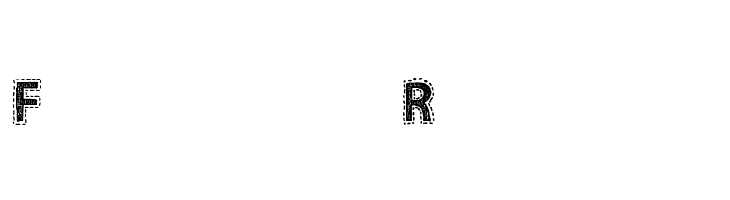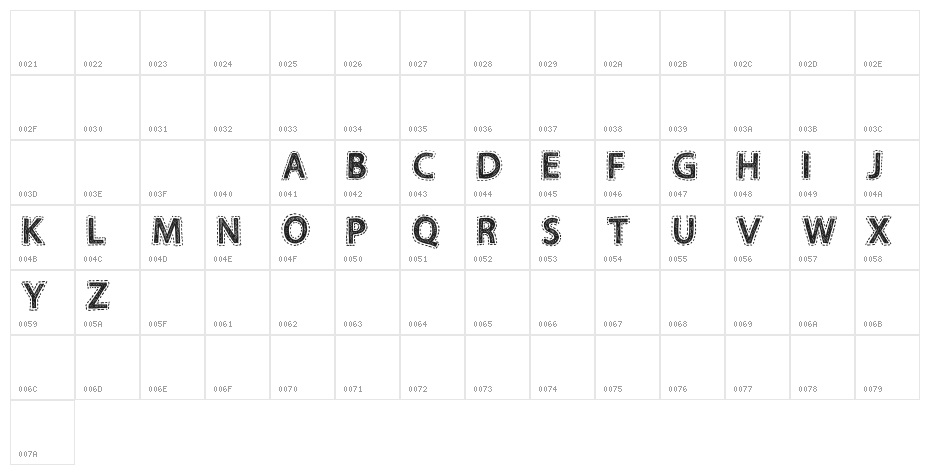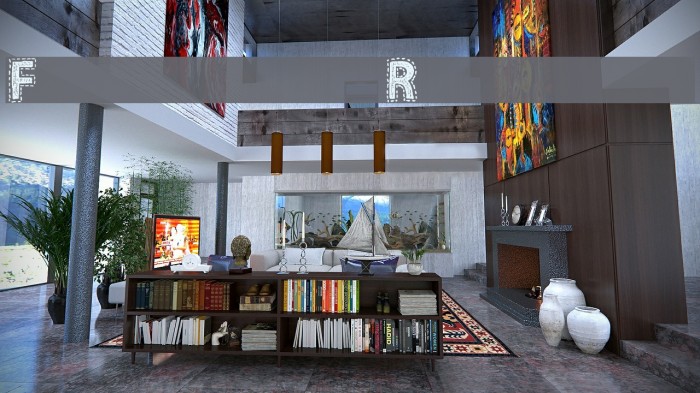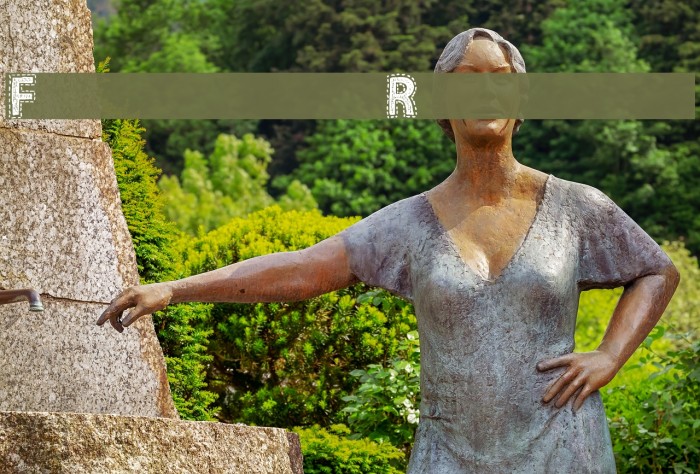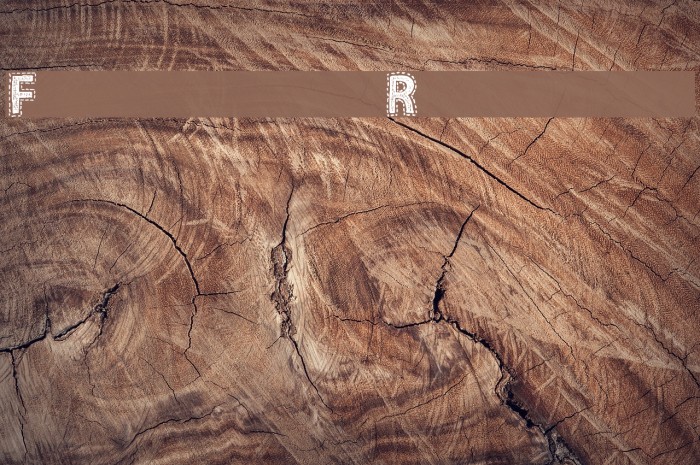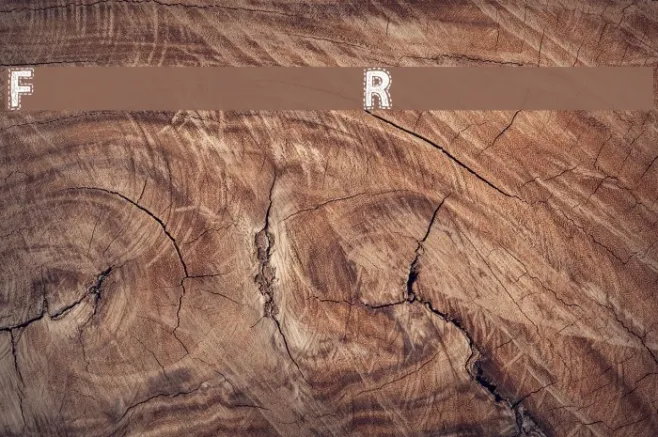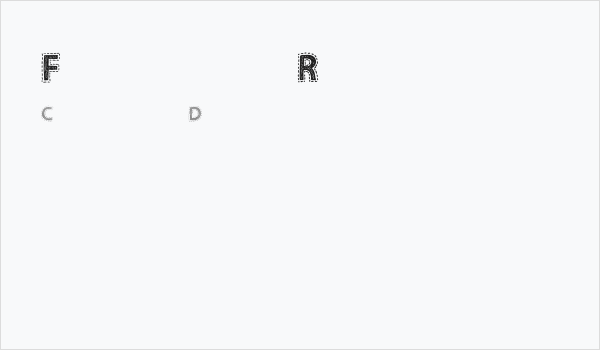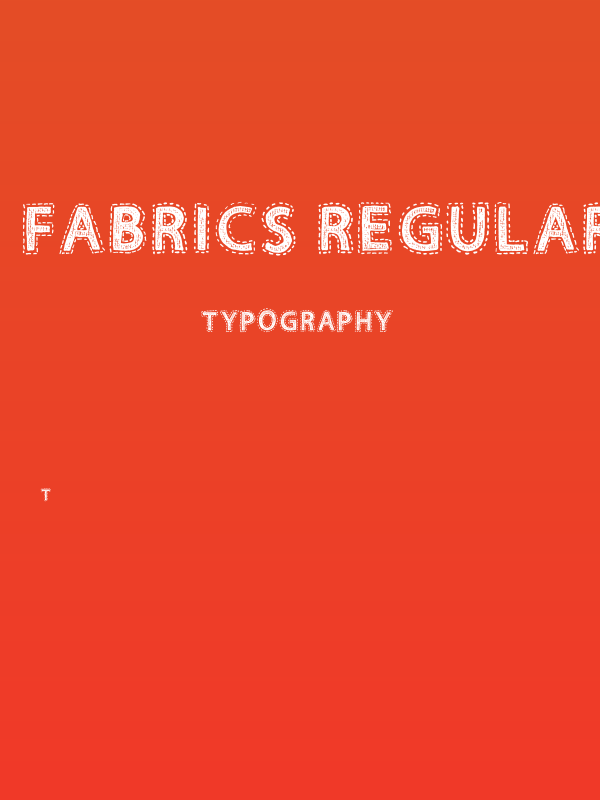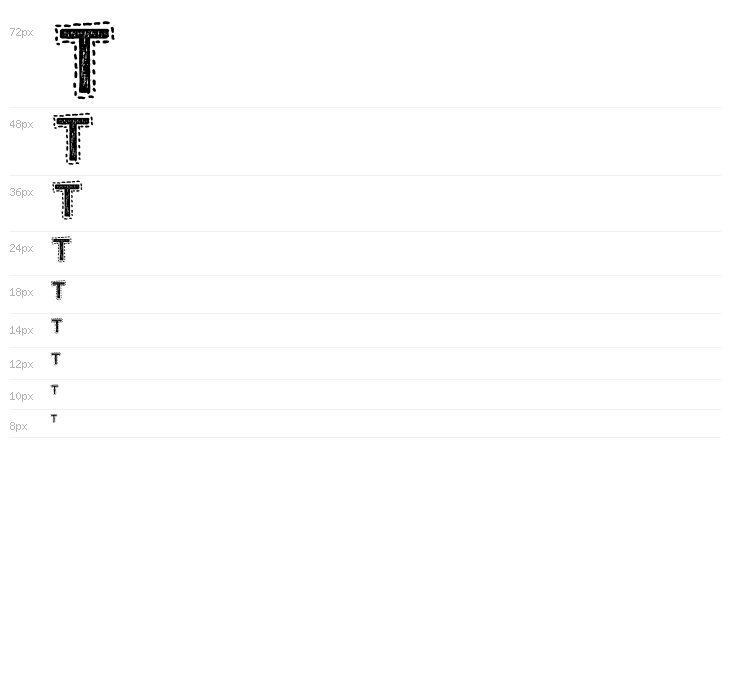
Fabrics Regular Font
Fabrics Regular Description
This font features a unique and playful design with a fabric-like texture, giving it a handcrafted appearance. The letters are bold and outlined with a dashed pattern, creating a sense of depth and texture. The uppercase characters are uniform in size, with clean lines and a slightly rounded shape that adds to the friendly and approachable feel. The font's decorative elements make it stand out, making it suitable for creative and artistic projects. Its distinct style is perfect for adding a touch of whimsy and charm to any design.
| Proposed Projects | Ideal for crafting projects, children's book covers, playful branding, and DIY-themed designs. |